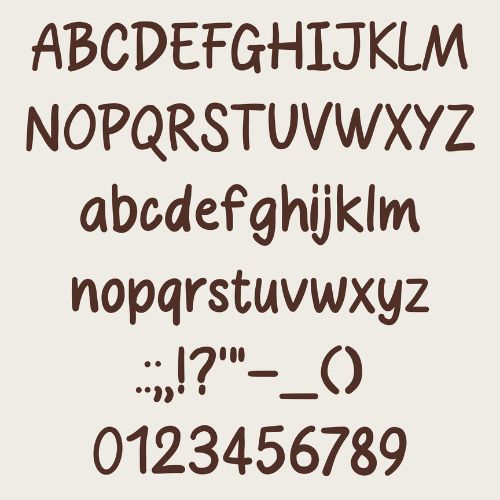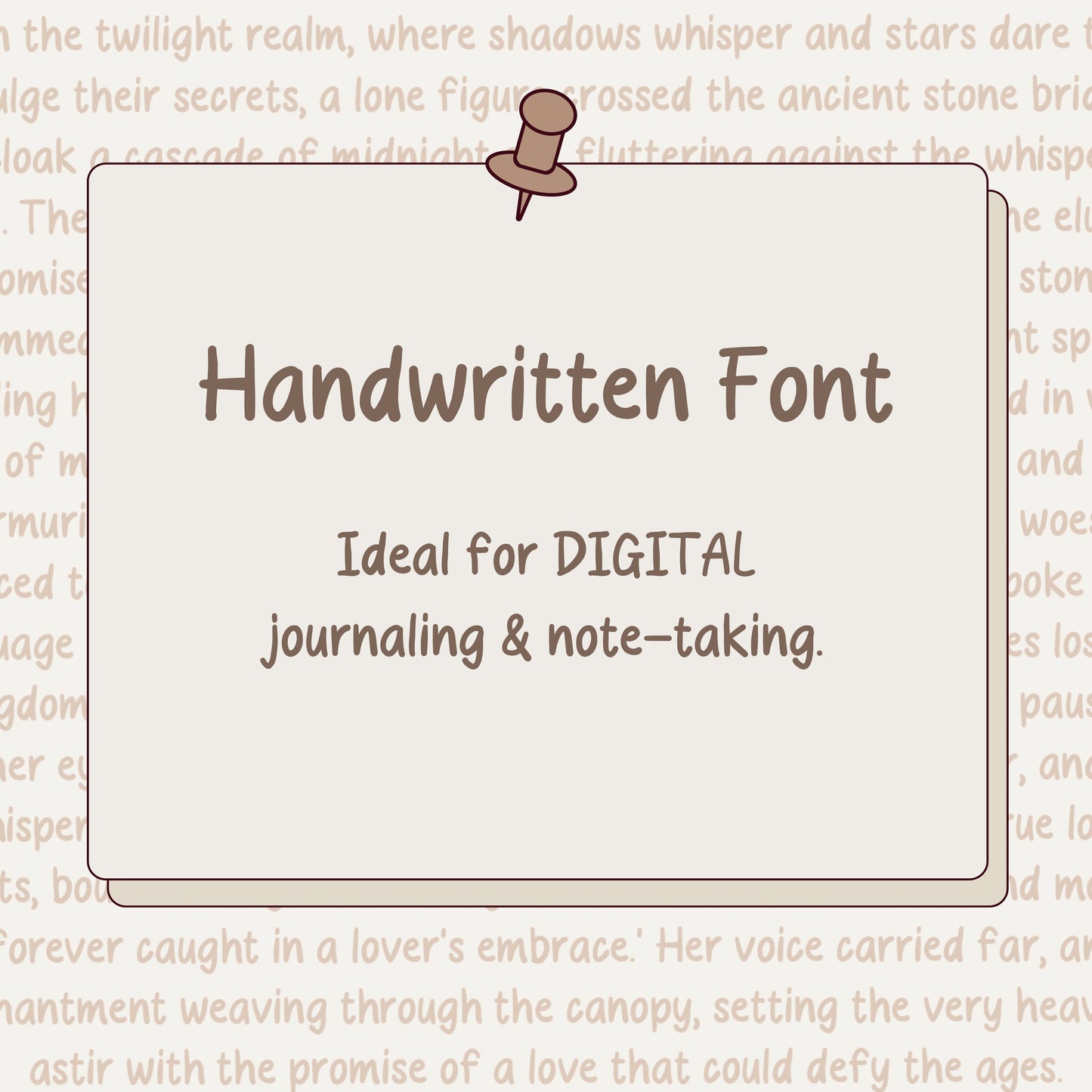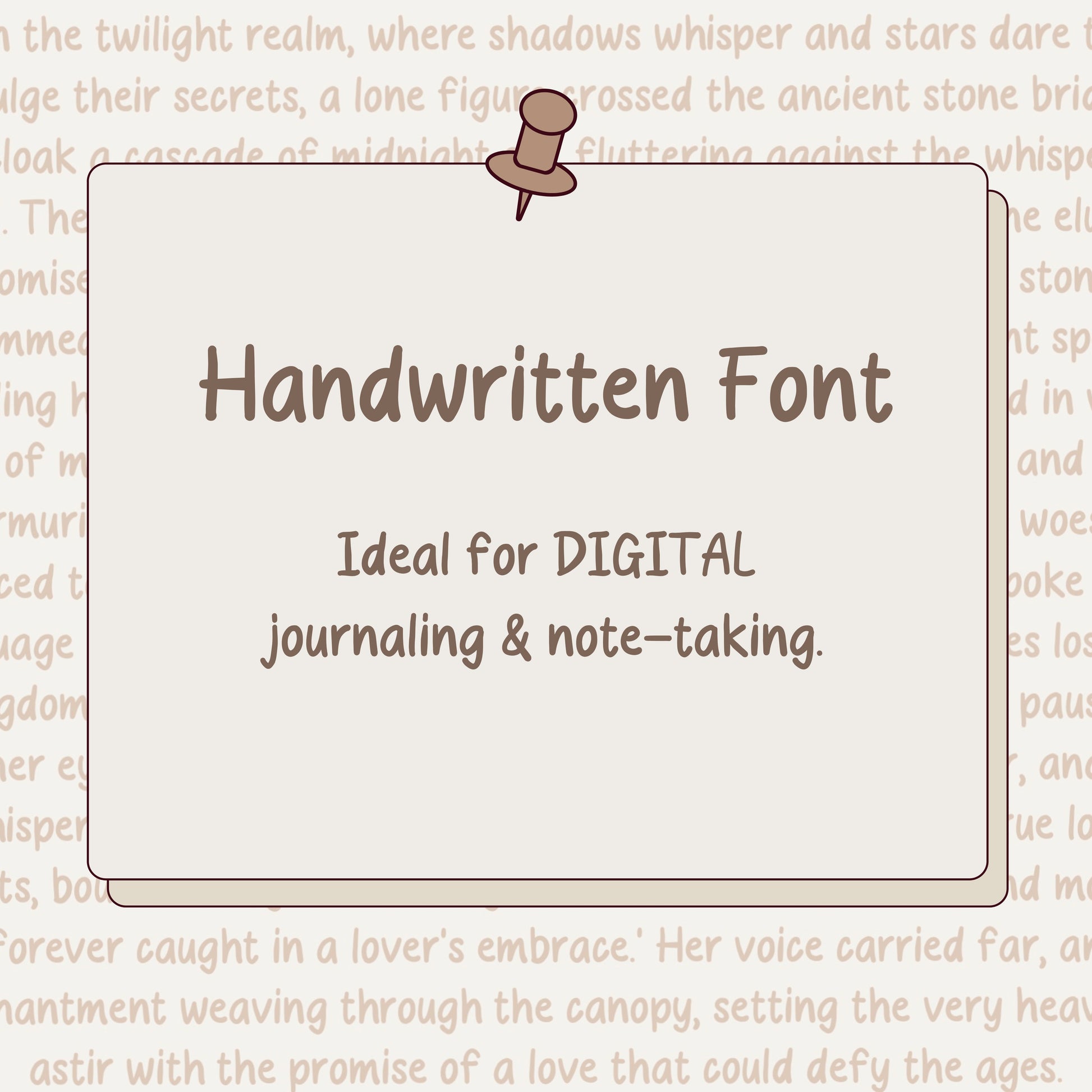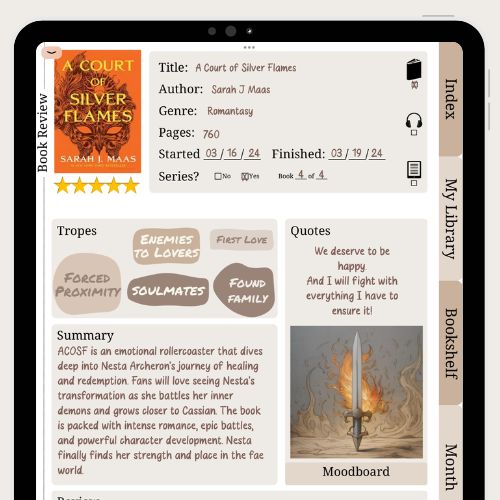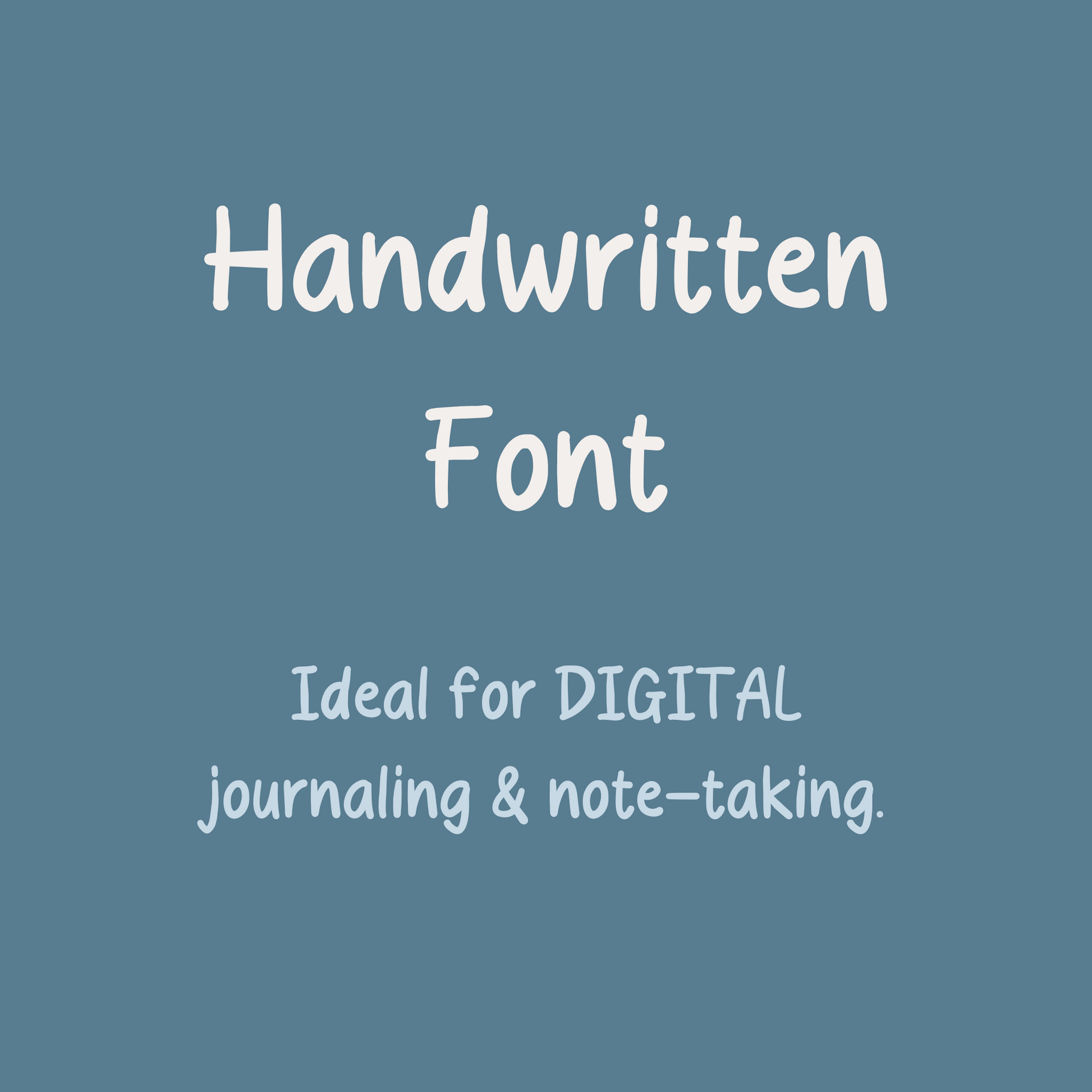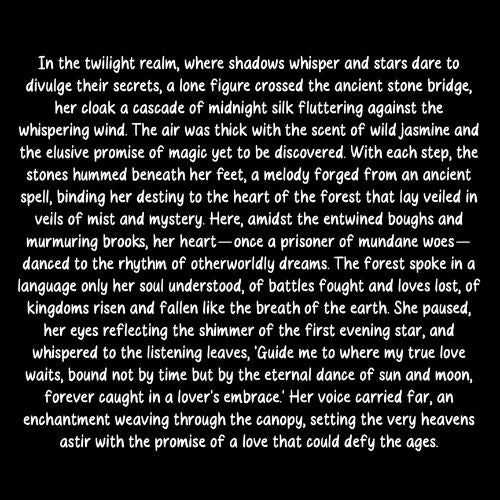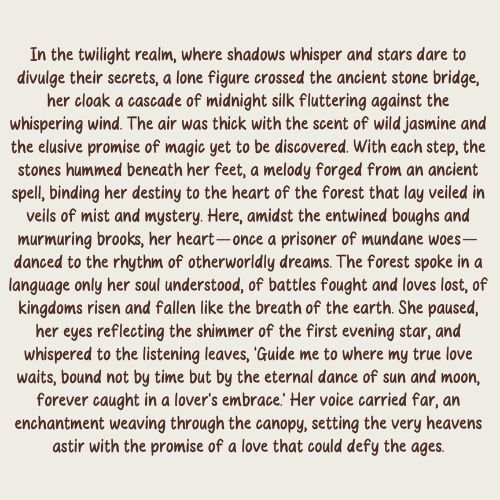
Handwritten Font
This handwritten font adds a personal touch to your journal, bringing a unique and authentic feel.
Neaten your notes with this realistically designed font.